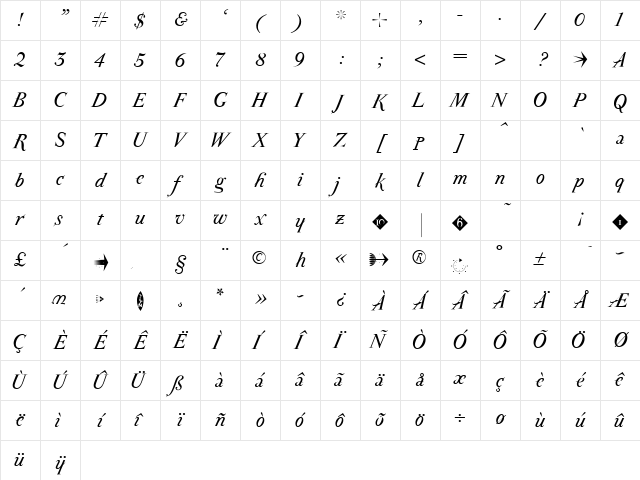
Complete AIParmaPetit Italic glyph index. Displaying only characters natively supported by AIParmaPetit Italic font.
AIParmaPetit is a composed and adaptable typeface that performs quietly and consistently across a wide range of design contexts. The slanted form adds forward momentum and visual energy.
Pro Tip: Use AIParmaPetit for emphasis, pull quotes, and subheadings where its slanted energy can add rhythm to the layout.